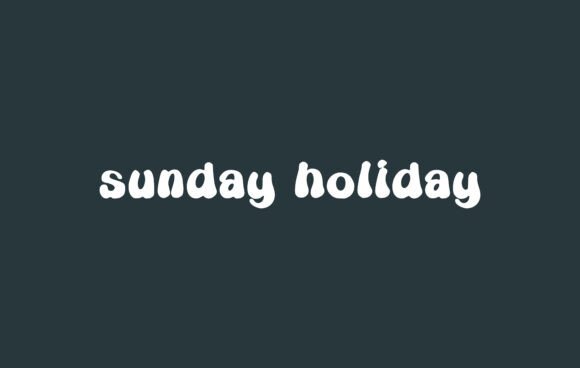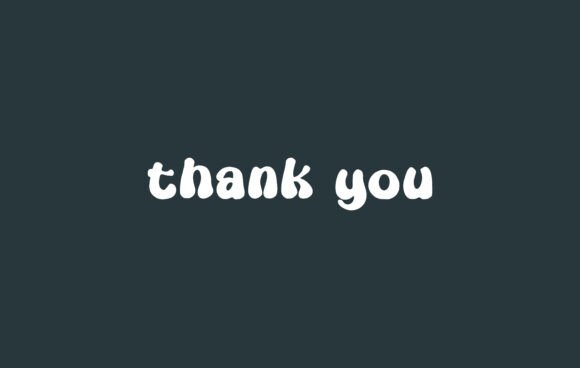
Introduction to Phalsa Font
Have you ever found yourself in a creative rush, pouring your heart and soul into a project, only to realize that the perfect font is missing? That’s exactly where Phalsa Font comes in – a beautifully crafted, authentic handwritten font that adds a touch of romance to any design. Whether you’re working on a magazine headline, social media post, or wedding invitation, Phalsa Font is sure to elevate your creative project to new heights.
As a valuable resource for designers, Phalsa Font offers a unique combination of legibility and aesthetic appeal. With its high-quality design, it’s perfect for use as both title and body text. Plus, with a transparent background, you can easily incorporate it into your designs without worrying about visual clutter. And the best part? You can download Phalsa Font for free, making it an accessible design resource for anyone looking to take their creative ideas to the next level.
Key Features of Phalsa Font
- High-quality design resource with a unique and creative touch, ideal for various projects.
- Designed to be versatile and adaptable, making it a valuable asset for any creative project.
Honest Review: Phalsa Font
As a designer, I’ve worked with numerous fonts, and I’m always on the lookout for high-quality, versatile design resources. Recently, I stumbled upon the Phalsa Font, and I must say, it’s a gem. Here’s my honest review.
What works well: ✨ The Phalsa Font is incredibly easy to use, with a clean and modern design that suits a wide range of creative projects. The font is available for free download, making it an excellent addition to any designer’s toolkit. The transparent background is also a plus, allowing for seamless integration with images and other design elements.
One of the standout features of the Phalsa Font is its versatility. It’s perfect for logos, titles, and body text, making it an excellent choice for designers working on various projects.
However, there are some limitations to consider: ⚠️ The font family is relatively small, with only a few weights and styles available. While this isn’t a major issue for most designers, it may limit its use in more complex creative projects.
Overall, I’m thoroughly impressed with the Phalsa Font. It’s a high-quality design resource that’s perfect for designers working on a variety of projects. Whether you’re looking for a free font to add to your collection or a versatile font for a specific creative project, the Phalsa Font is definitely worth checking out.
Pros:
- Easy to use
- Modern design
- Perfect for logos, titles, and body text
Cons:
- Small font family
To get the most out of the Phalsa Font, use it on a transparent background to create a unique and eye-catching design. This will allow the font to stand out and add a professional touch to your creative project.
The Phalsa Font is ideal for use in logos, branding materials, and other design elements where a high-quality, unique font is required. Its versatility makes it a valuable design resource for any creative project.